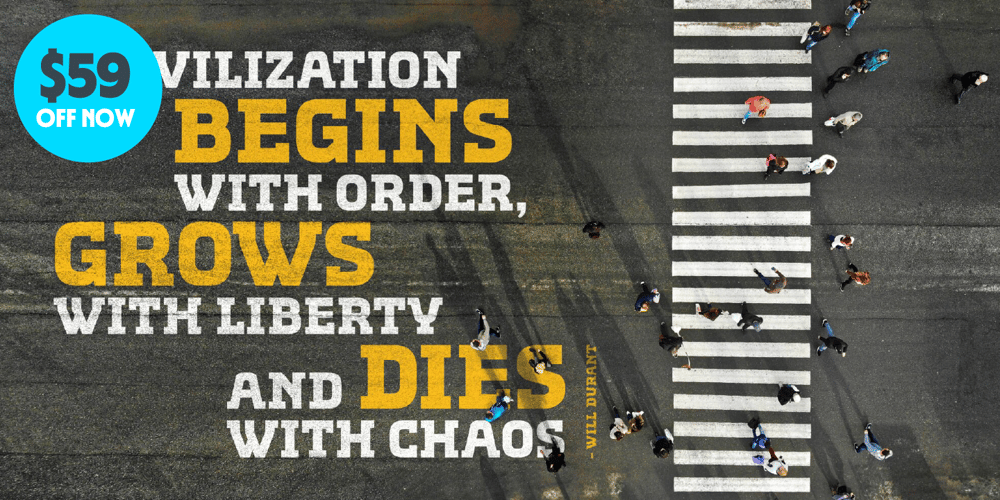
Absentia Slab Font Family was designed by Daniel Robichaud and published by DR Fonts. Absentia Slab contains 22 styles and family package options. Conceived as a slab serif companion to the Absentia Sans family, this typeface complements its sibling with charisma and style. Built on the same geometric framework, they combine and harmonize gracefully. Yet Absentia Slab stands on its own as a novel alternative to conventional options. Anchored by blocky serifs, it presents an appearance of stability and steadiness. Its audacious design integrates unique features such as vertical terminals in glyphs ‘a’, ‘e’ and ‘6’. To make optimal use of available space, one-sided serifs (and in some cases, simple strokes without any serifs) help maintain an airy, uncluttered footprint as seen in letters ‘m’, ‘E’ and ‘N’.This forward-looking typeface is well suited for a variety of projects: understated yet spirited, technical yet welcoming. It has a modernist appeal, while reminiscent of XIXth Century woodblock lettering. Designed by Daniel Robichaud, Absentia Slab is available in ten weights with matching italics and two variable fonts.